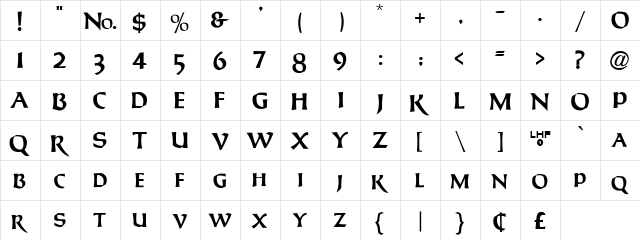
LHFUncialCaps Medium
Design Context for LHFUncialCaps Typeface
LHFUncialCaps has an approachable, lighthearted character — its loose, expressive forms are well-suited to children's content, casual branding, and fun-first design.
Well-suited to food and beverage brands with personality, educational materials, and fun-forward identities.
Font Pairing: Pairs well with a rounded or humanist sans for body copy, maintaining the friendly tone without relying on LHFUncialCaps to carry extended reading.
Pro Tip: Use LHFUncialCaps at larger display sizes where its expressive character can land. Pair with a clean, simple sans for body copy to maintain readability.